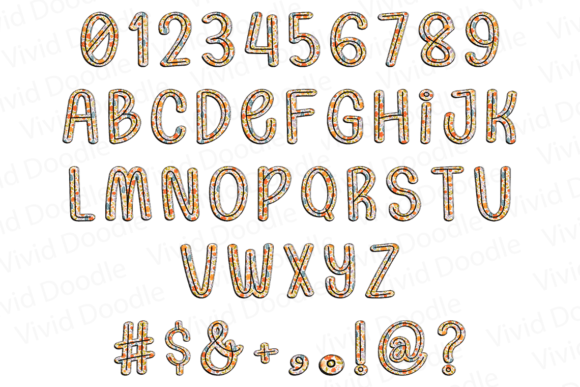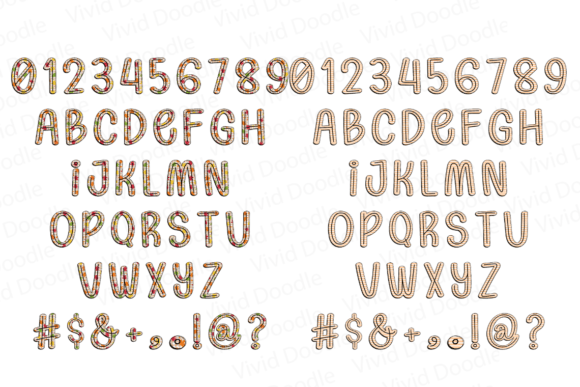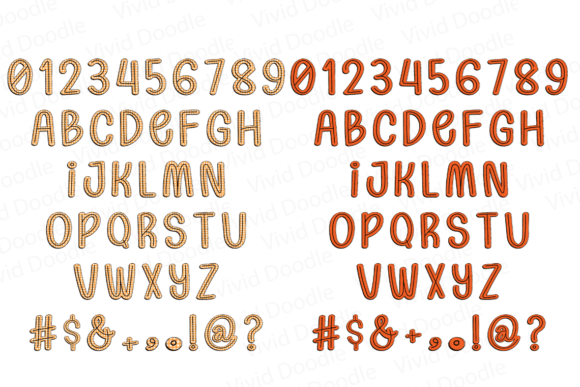
Boho Autumn Doodle Font
Step into the cozy vibes of the autumn season with the “Boho Autumn Doodle” font. This font is designed to add a touch of the season to all your creative endeavors, from holiday cards to classroom materials and beyond. Let “Boho Autumn Doodle” inspire your next project and capture the essence of fall in every design.Note!This product is a color font (Opentype-SVG) and is compatible with PhotoShop, Illustrator, Silhouette, and Inkscape. The OTF and/or TTF files of this product are not compatible with Cricut. For more information on how to use this type of font please check our Ultimate Font Guide .